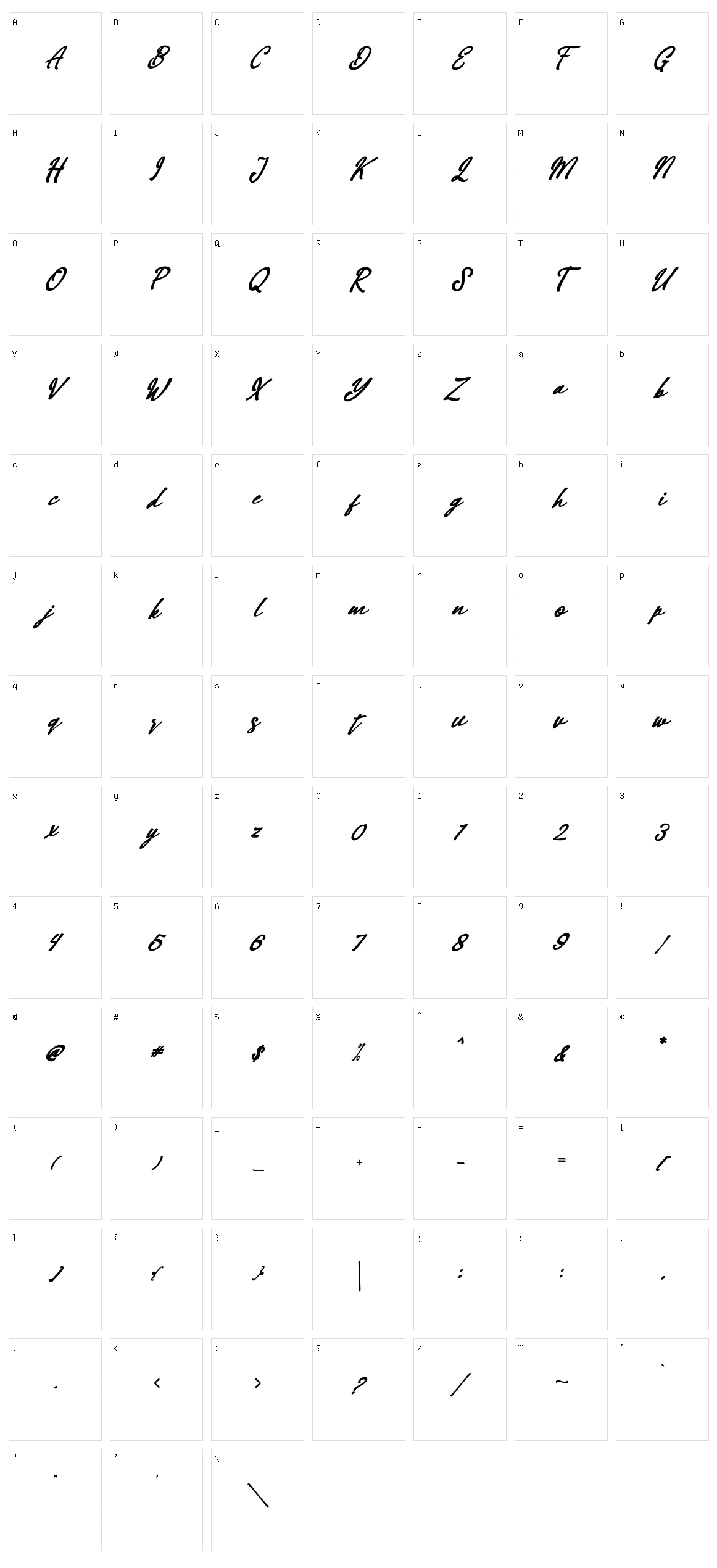
The free font Handover is carefully designed by Masinong Studio, showcasing a thoughtful balance of creativity and usability and falls under the Script font style. When you download the ZIP file, it contains only 29.09 KB of font files, making it lightweight and quick to download. Please review the license details below to understand permitted usage and distribution rights. If license information is not available, we recommend using this font for personal projects only or contacting the author directly for commercial usage permissions.